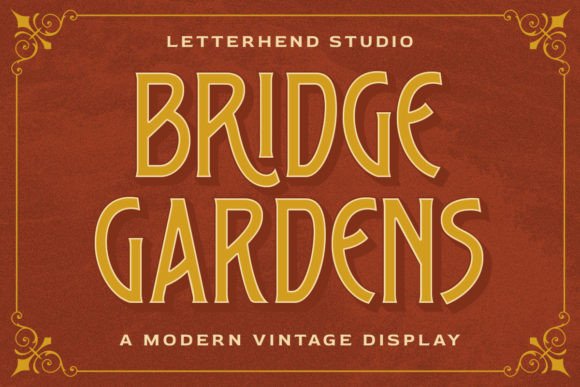
The Perfect Font for Your Next Design Project: Bridge Gardens
A Personal Review of Bridge Gardens
Bridge Gardens is a display font that boasts a unique blend of vintage and clean looks, making it an excellent choice for headlines, logos, and other creative applications. Here’s what I love about it:
- ✨ Sophisticated and elegant: Bridge Gardens exudes a sense of refinement and luxury, making it perfect for high-end brands and publications.
- ✅ Modern and original: The font’s clean lines and unique design elements give it a fresh and modern feel that’s sure to grab attention.
- 🌈 Versatile: Bridge Gardens comes in a range of styles, making it suitable for various design applications, from print to digital.
While Bridge Gardens is an excellent font, it’s not without its quirks. Here are a few things to keep in mind:
- 🤔 Limited use cases: Due to its display nature, Bridge Gardens is best suited for headlines and titles rather than body text.
- ⚠️ Glyph limitations: While the font has a range of glyphs and OpenType features, some users may find the selection limited.
The Story Behind Bridge Gardens
Bridge Gardens was designed with the goal of creating a font that embodied the perfect blend of modernism and elegance. The designer’s inspiration came from the clean lines and minimalist aesthetic of modern architecture, combined with the ornate details of traditional typography. The result is a font that’s both sophisticated and refined, making it perfect for high-end brands and publications.
| What is Bridge Gardens? | Bridge Gardens is a display font with a unique blend of vintage and clean looks, making it perfect for headlines, logos, and other creative applications. |
| What type of projects is Bridge Gardens best suited for? | Bridge Gardens is best suited for high-end brands, luxury publications, and creative projects that require a sophisticated and elegant visual identity. |
| Can I use Bridge Gardens for body text? | No, Bridge Gardens is a display font and is best suited for headlines and titles rather than body text. |
| Does Bridge Gardens come with OpenType features? | Yes, Bridge Gardens comes with a range of OpenType features and glyphs, making it perfect for designers who want to add an extra layer of creativity to their work. |